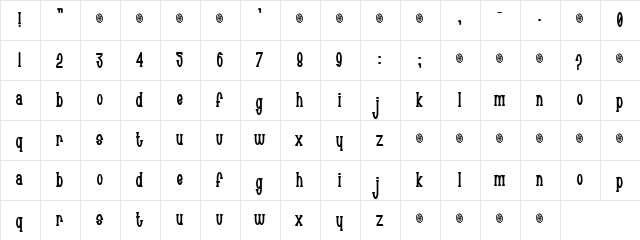
Chachie Regular
Design Context for Chachie Typeface
Chachie offers clean, dependable letterforms without strong stylistic allegiance, making it a practical choice for designers who need flexibility.